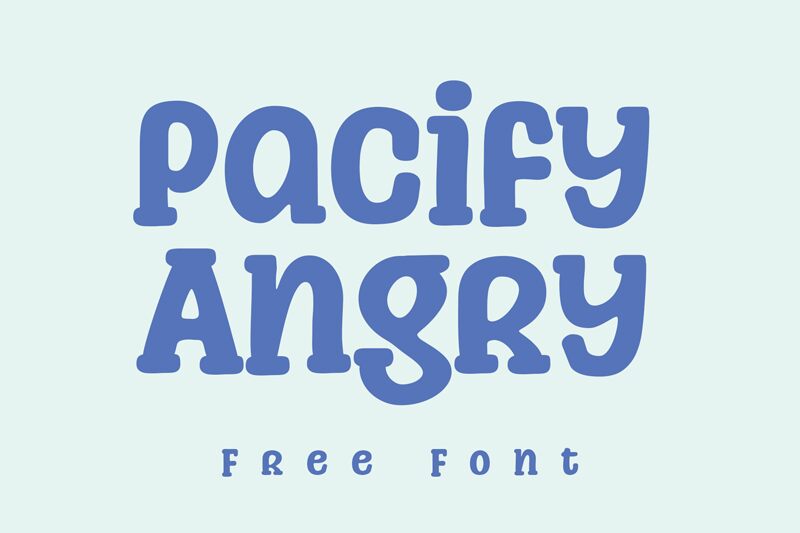
Pacify Angry Regular
Pacify Angry font is an unhinged all-caps font that can make anyone smile and scream at the same time. It emulates sarcasm, giggles and immense sneer through letterforms that has both graceful round shapes of display fonts, married with some vandalistic strokes on a whim. Perfect type for catching eye balls in the most engrossing way possible!
This unique and playful font works brilliantly on angry reviews, sarcastic comments, sneering social media content and more! You can brand your never-ending rants, give voice to a venomous protest poster or add snark to a user interface without having to compromise.